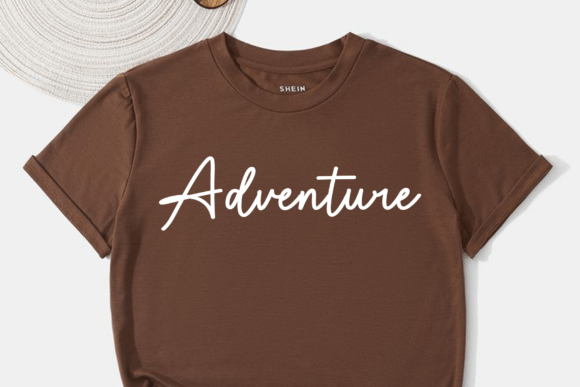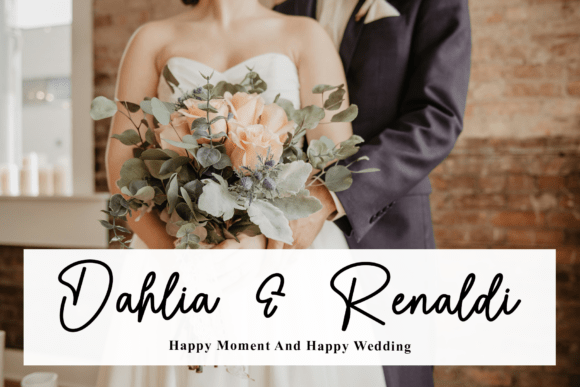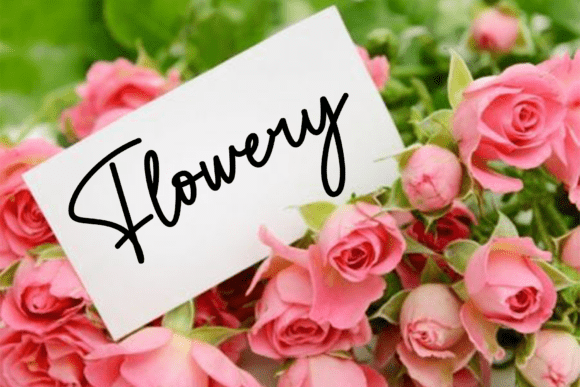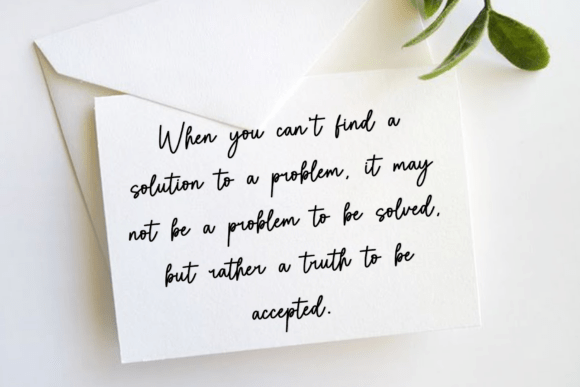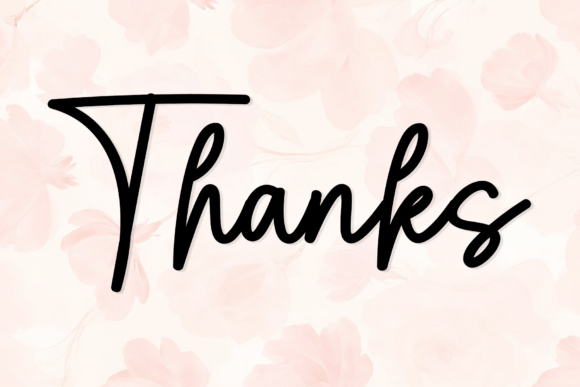
Discover the Timeless Elegance of the Boho Font
Have you ever been inspired by a beautiful handwritten note or a bespoke wedding invitation that perfectly captured the essence of a special moment? For many of us, it’s the intricate details and personal touches that make a design truly unforgettable. The Boho Font is a masterclass in elegance and sophistication, bringing a touch of luxury to any project it’s used in.
This beautiful handwritten script font is designed to evoke the feeling of high-end editorial signatures, intimate event branding, and sophisticated lifestyle photography overlays. As a designer, you’ll love the flexibility and versatility of the Boho Font, which can be used to create everything from bespoke wedding stationery to high-end marketing materials.
With its fluid lines and elegant curves, the Boho Font is a valuable addition to any designer’s toolkit. Whether you’re working on a high-end project or simply want to add a touch of sophistication to your everyday designs, this font is sure to impress.
Boho Font Key Features
- Character Count: The font family includes over 300 characters, including uppercase and lowercase letters, numbers, and punctuation marks.
- Unique Characteristics: Boho Font features a unique, hand-drawn design with a mix of modern and vintage elements, giving it a distinctive and eclectic feel.
Boho Font Review
As a designer, I was excited to dive into the world of Boho Font. This font family is designed to evoke the free-spirited and eclectic vibe of bohemian culture. Let’s take a closer look at what makes it tick! ✨
- The Boho Font has a unique, hand-drawn feel that’s perfect for adding a touch of personality to your designs.
- The font family includes a wide range of weights and styles, making it easy to find the perfect fit for your project.
- The characters are well-designed and well-spaced, making it easy to read and use in both digital and print applications.
However, I do have a few reservations:
- ⚠️ The font can be quite quirky and may not be suitable for all design projects.
- ⚠️ Some of the characters may be slightly inconsistent in terms of design and spacing, which can be distracting in certain contexts.
Overall, I think Boho Font is a great addition to any designer’s toolkit. While it may not be suitable for every project, it’s perfect for adding a touch of whimsy and personality to your designs. With a little creativity and experimentation, I’m confident that you’ll be able to get the most out of this font family.
Tips for Getting the Most Out of Boho Font
Here are a few tips to get the most out of Boho Font:
- Use it in conjunction with other decorative fonts to create a unique aesthetic.
- Experiment with different font sizes and styles to achieve the desired visual impact.
- Pair Boho Font with bold, eye-catching colors to create a striking visual effect.
Boho Font is commonly used in:
- Travel and adventure-themed designs.